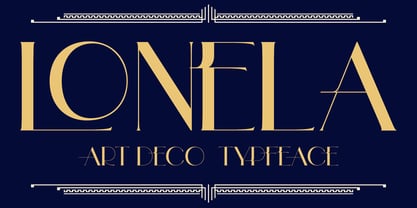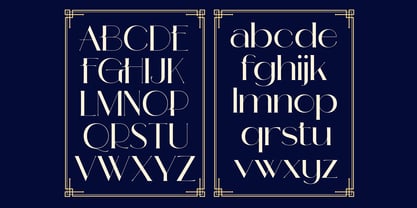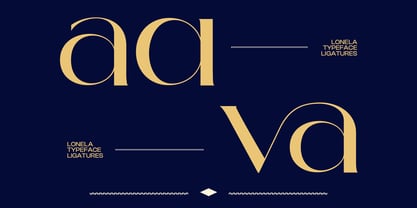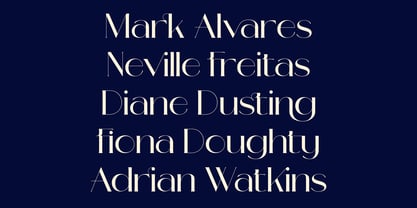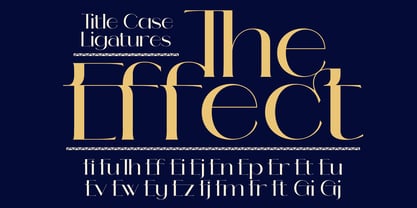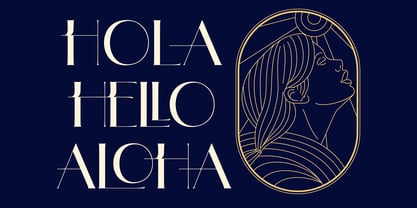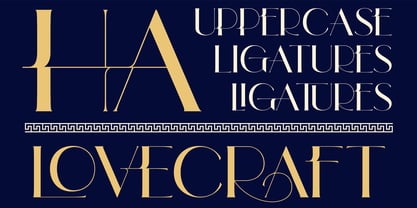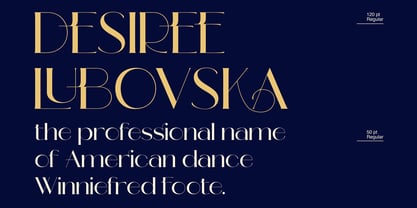
Lonela
von Graptail
Die Schriftfamilie Lonela wurde von Teuku Deky Firnanda entworfen und von Graptail veröffentlicht. Lonela enthält 1 Stile. Mehr über diese Familie
This majestic typeface adds a elegant twist to any design. Although the inspiration for this typeface comes from the Art Deco era, Lonela Font feels modern and contemporary. The large selection of stylistic alternations and ligatures makes this serif font extremely versatile. A passionate curve gives a touch of beauty to this font. Come up with two different shapes in terms of uppercase letters that aim to distinguish between title of the letter and the paragraph.